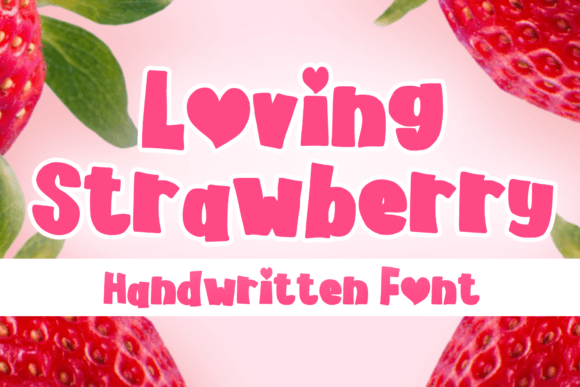
Are you tired of using the same old, boring fonts for your designs? Do you yearn for a font that exudes love and fun, perfect for capturing the essence of Valentine's Day? Look no further than Loving Strawberry Font, your ultimate choice for creating enchanting designs that will make hearts flutter.
Indulge in the bold and playful spirit of Loving Strawberry Font, meticulously crafted to add a touch of whimsy and charm to your creations. Whether you're designing captivating t-shirts, enchanting children's books, or heartfelt greeting cards, this font will elevate your designs with its unmistakable charm. Unleash your creativity and let your imagination soar as you use Loving Strawberry Font to adorn stickers and posters, bringing a touch of joy to every surface it graces.
Fall head over heels for its incredibly adaptable style, seamlessly blending sophistication and playfulness. Loving Strawberry Font empowers you to craft designs that are both elegant and endearing, leaving a lasting impression on your audience. Its versatility knows no bounds, allowing you to effortlessly create designs that cater to a wide range of tastes and preferences.
With Loving Strawberry Font, you'll embark on a delightful design adventure, transforming your creations into masterpieces that will evoke emotions and create lasting memories. Embrace the power of love and creativity, and let Loving Strawberry Font guide you towards unforgettable designs that will capture hearts and ignite imaginations.